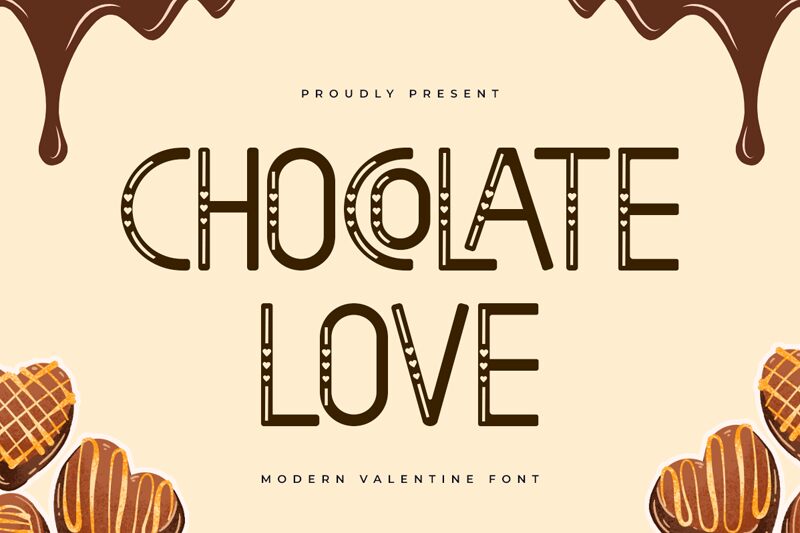
Chocolate Love font by Kong Font is a free decorative holiday typeface that turns every word into candy. Rounded, gentle letters outlined in inky black and filled with playful dots feel like sugar sprinkles on a chocolate truffle, giving text a sweet, hand-touched warmth. The steady rhythm of the shapes keeps it readable, while the dotted interiors add just enough sparkle to stand out without feeling noisy.
Using Chocolate Love, your Valentine cards, wedding favors, romantic quotes, party invitations, product packaging, and Instagram posts instantly get a cozy, love-soaked vibe. This free font shines in larger sizes where the dotted details can really pop, and it works beautifully paired with a clean sans-serif for smaller body text underneath.